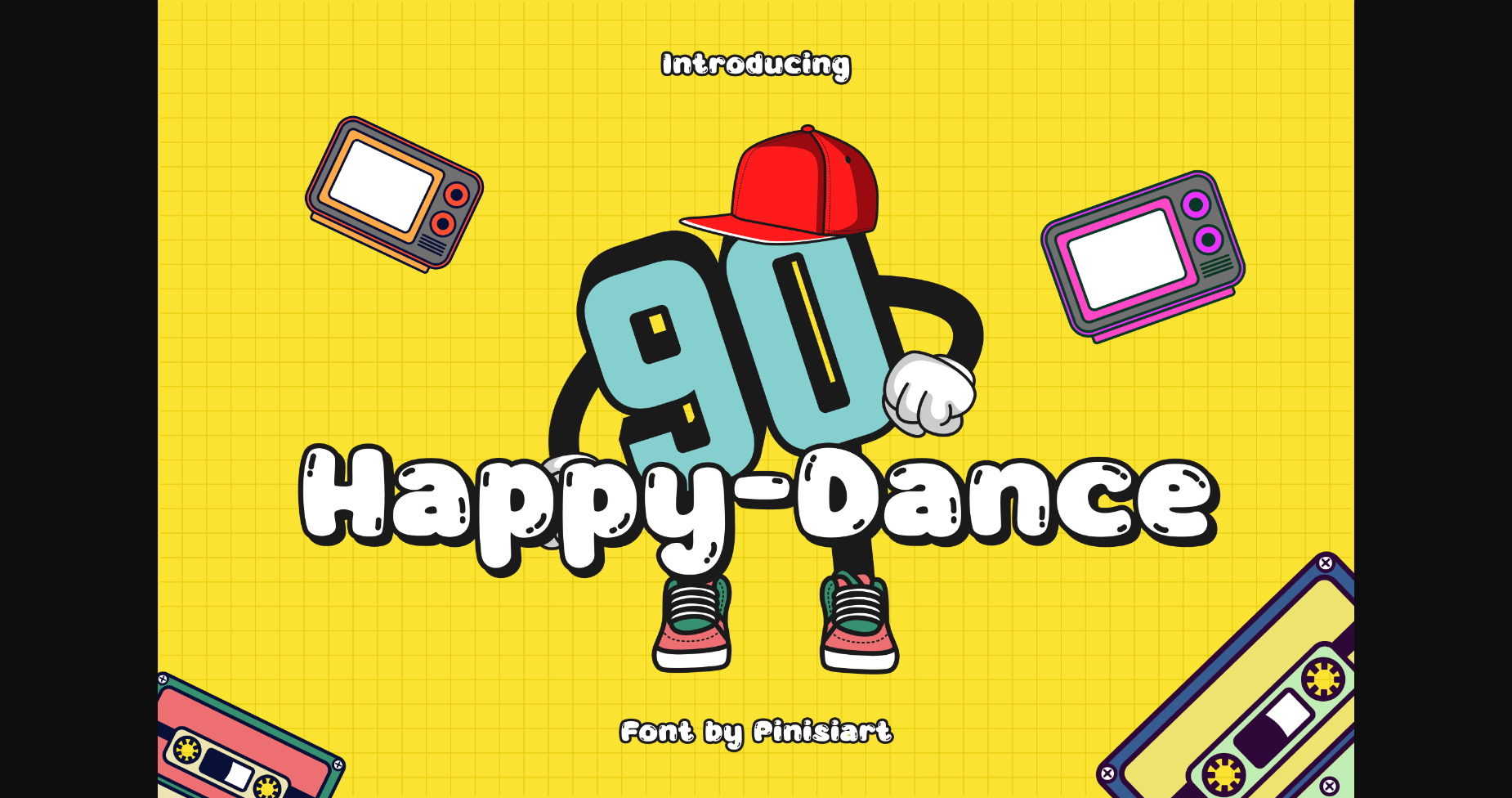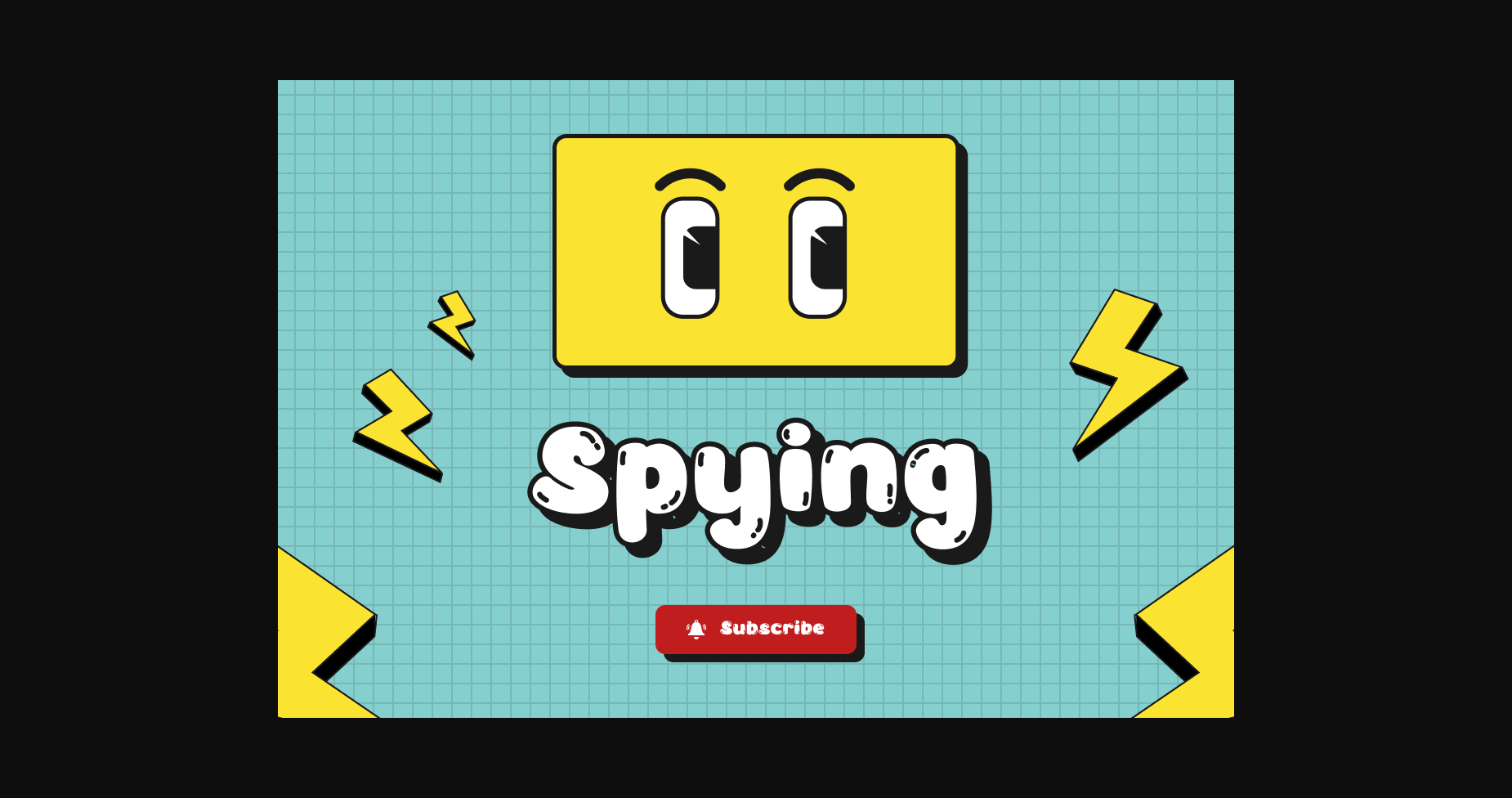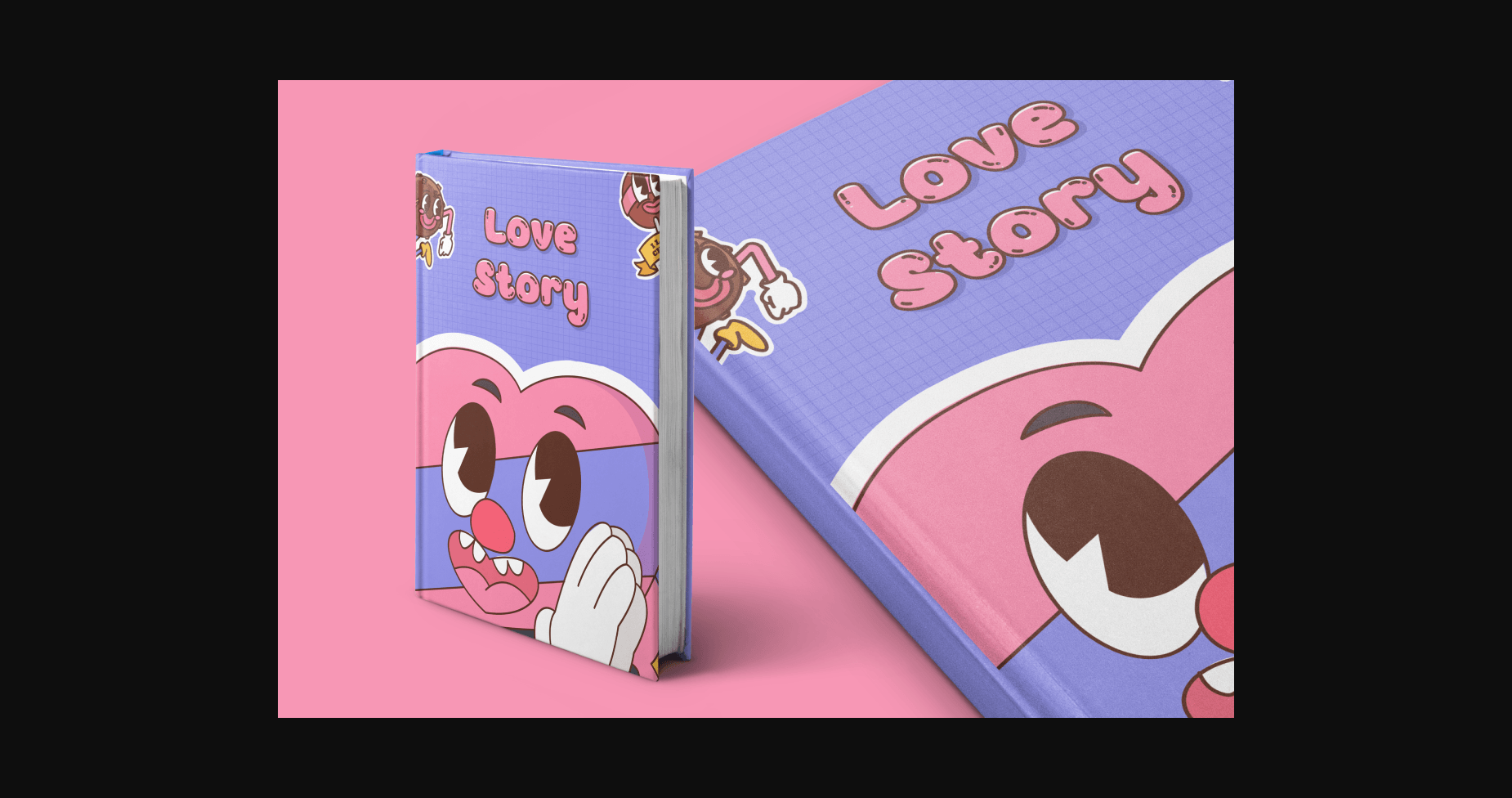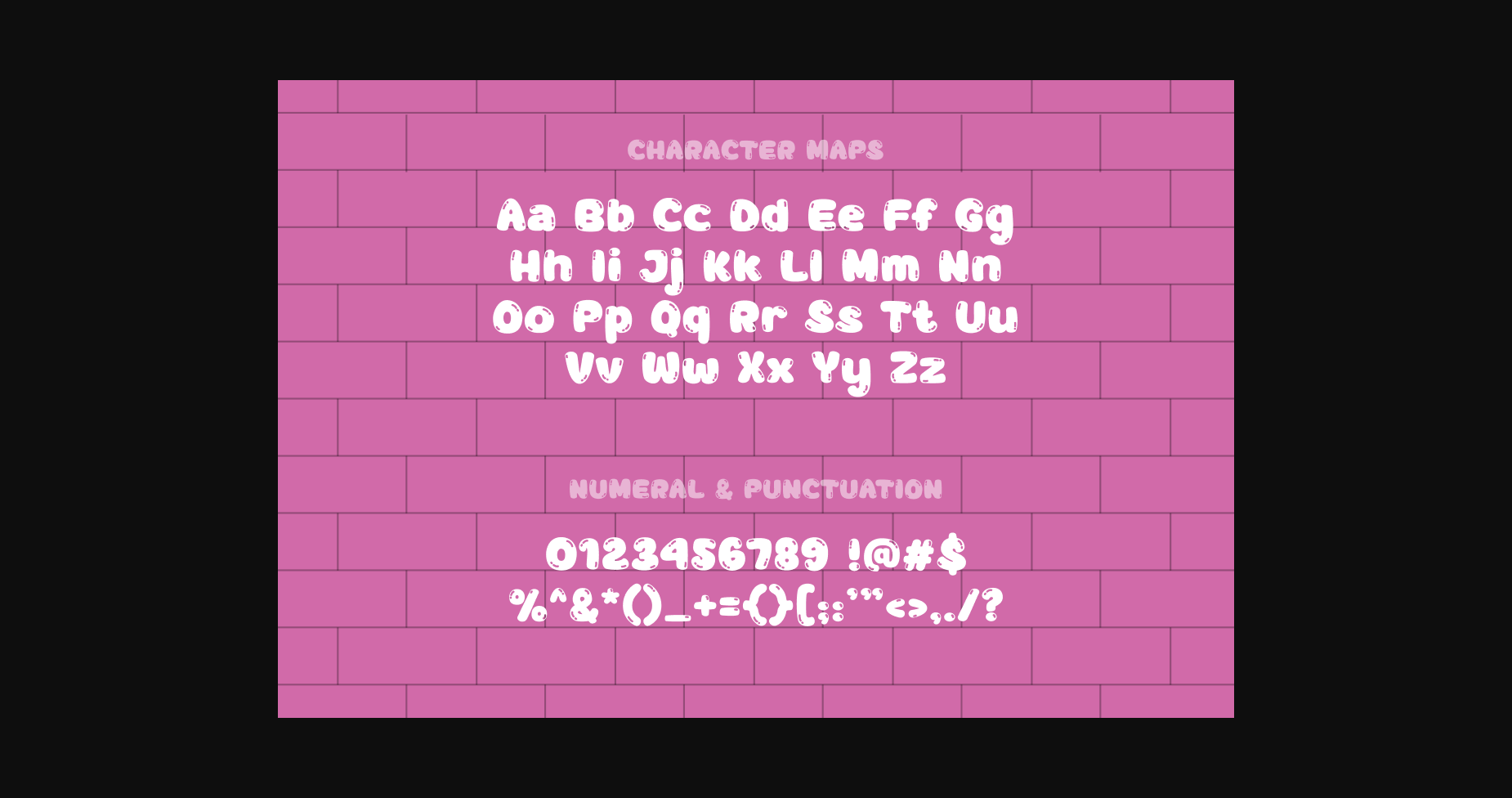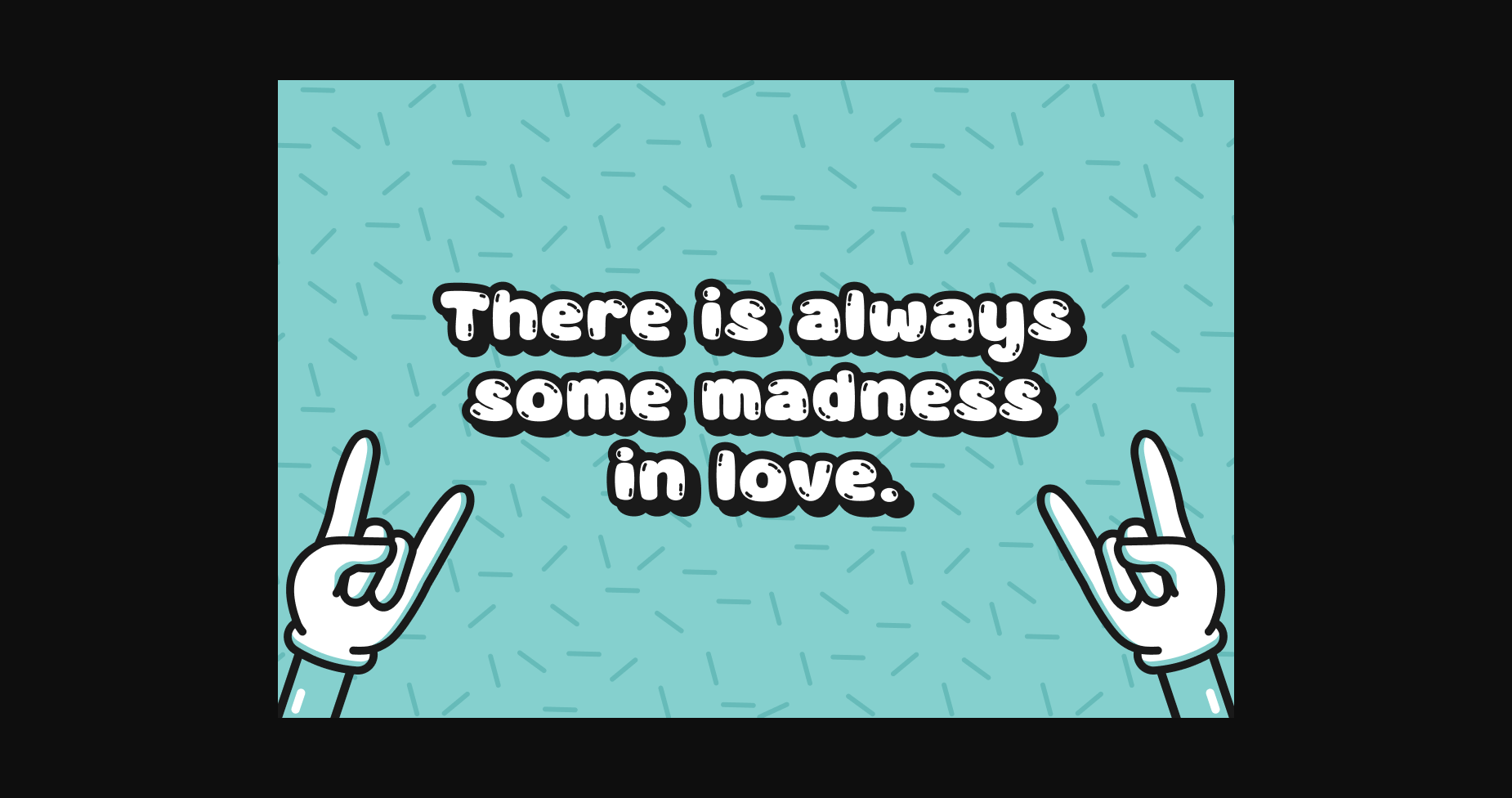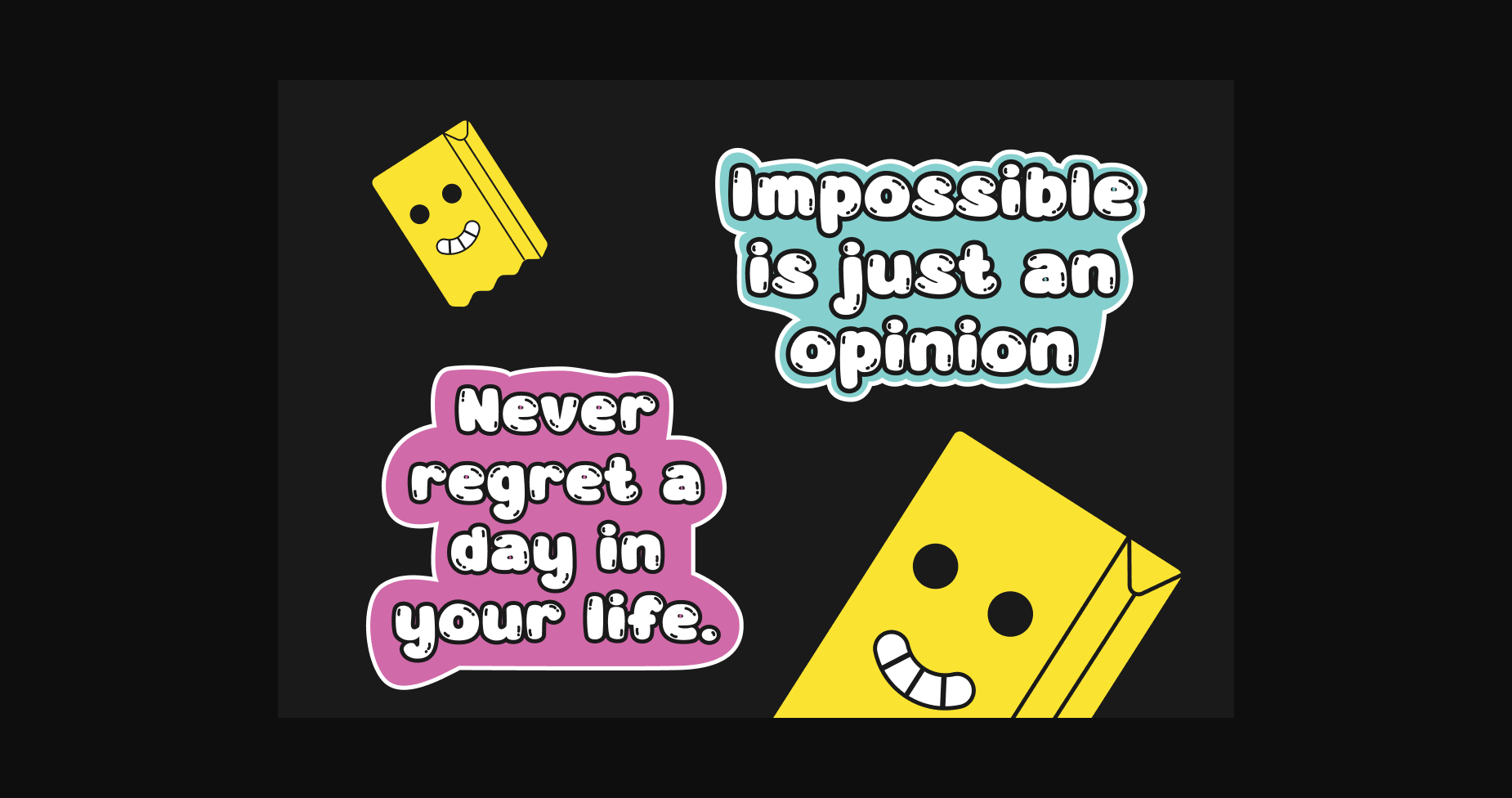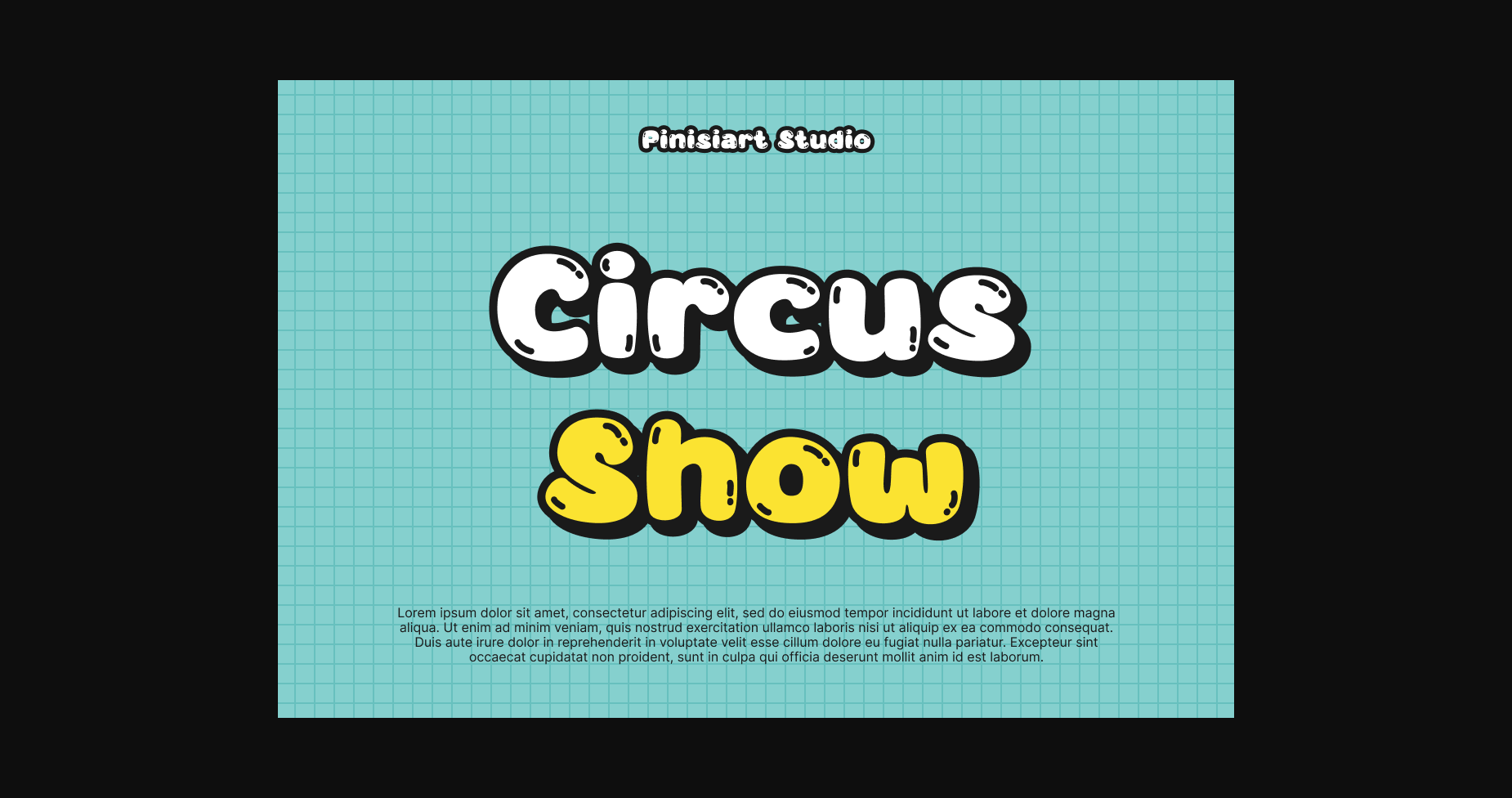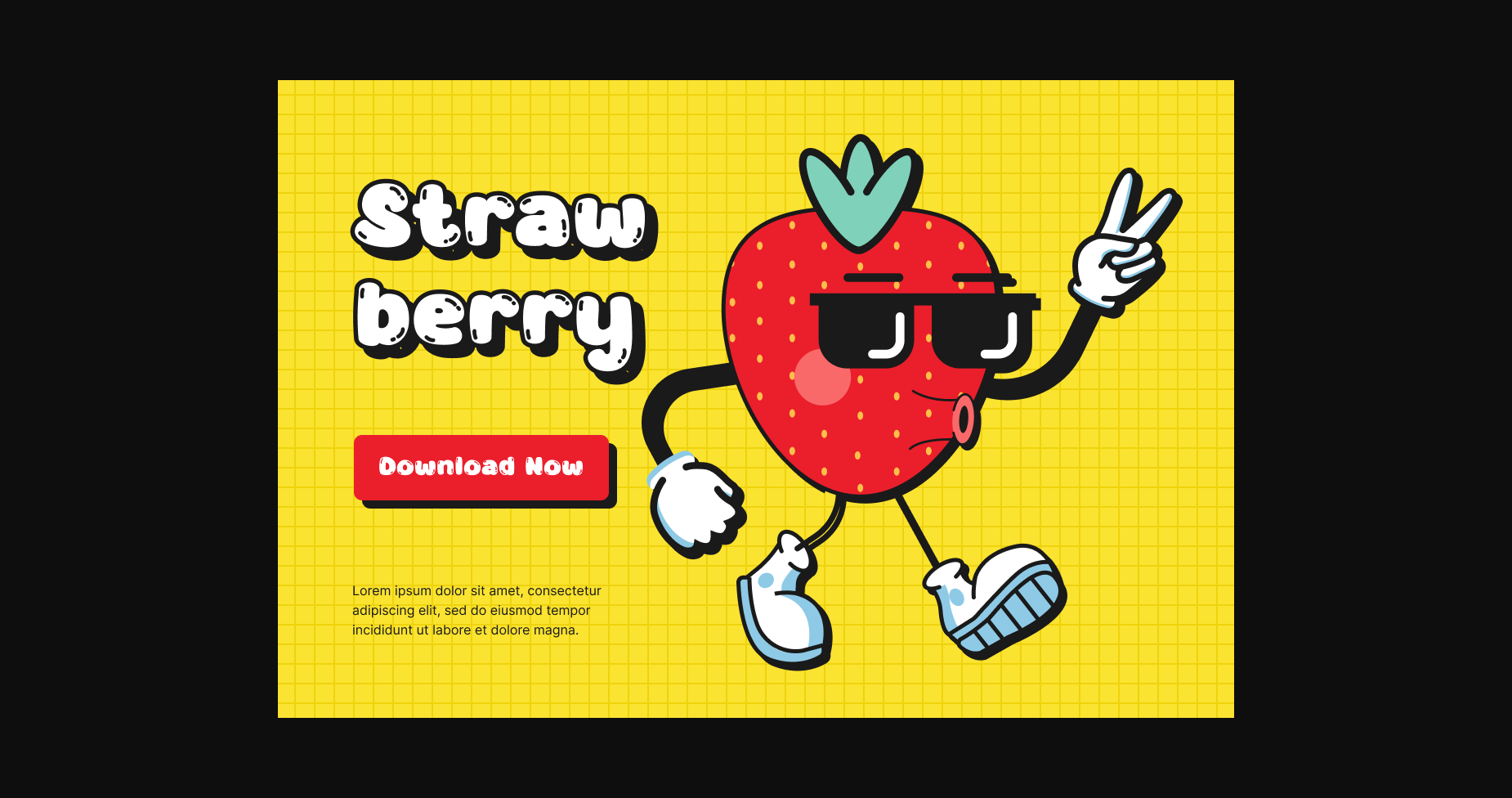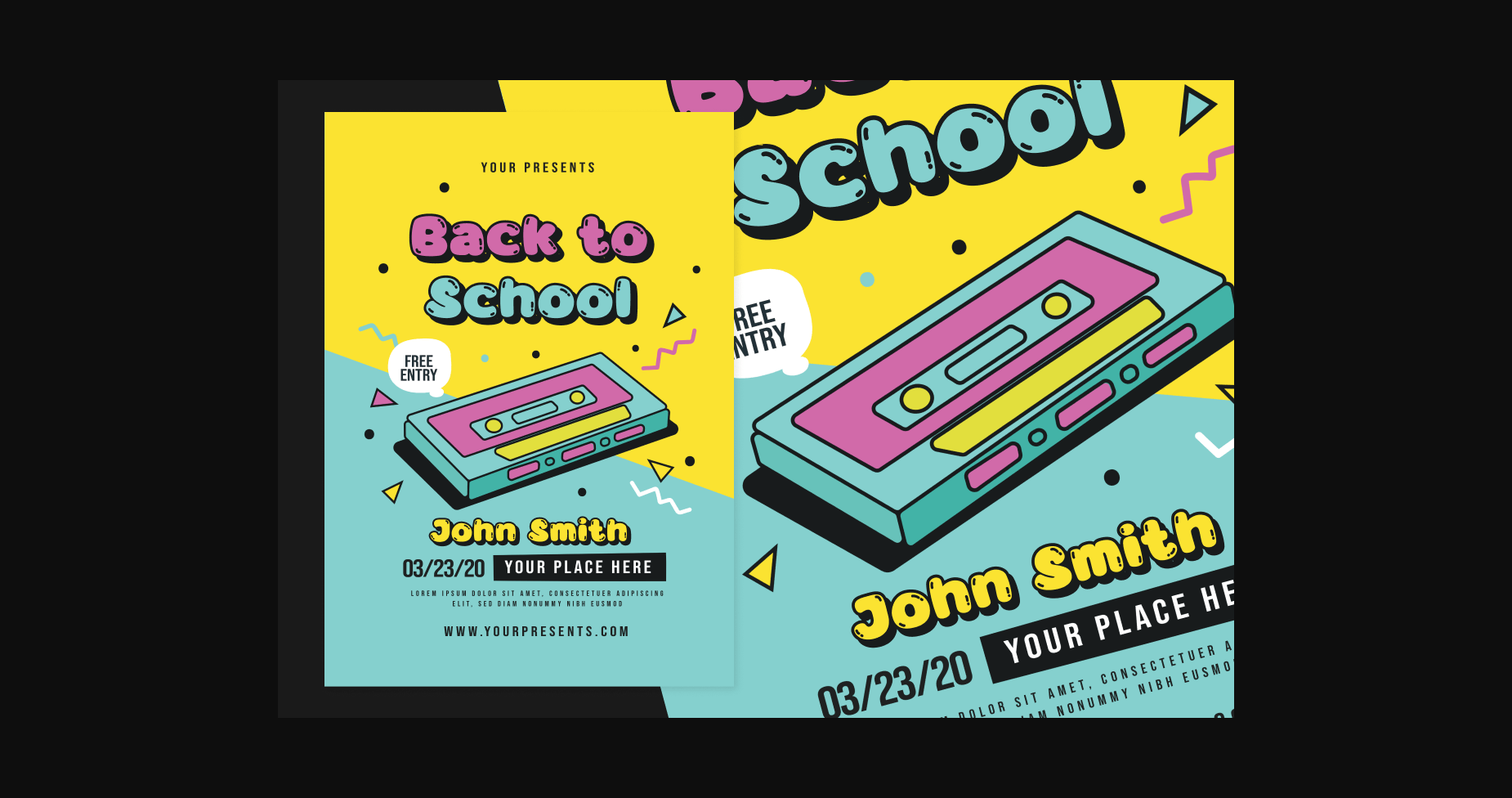
Happy Dance Font
About Happy Dance Font
Happy Dance has a strong personality which makes it a perfect choice for display projects. Perfectly suited for a wide range of applications from branding and logos, to candy and food packages, Happy Dance is a bright and fun typeface with a unique appearance.